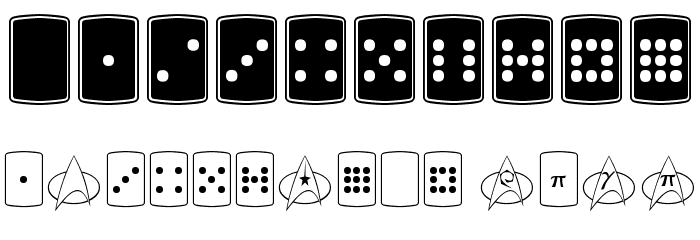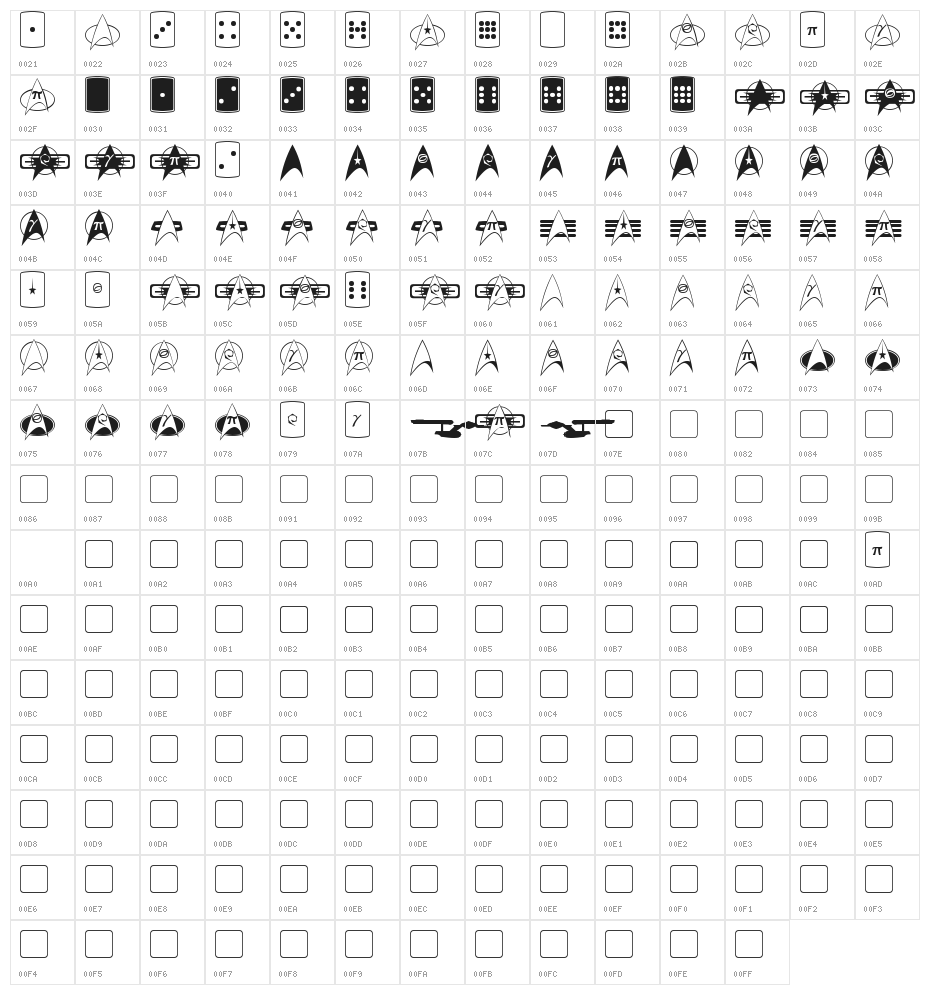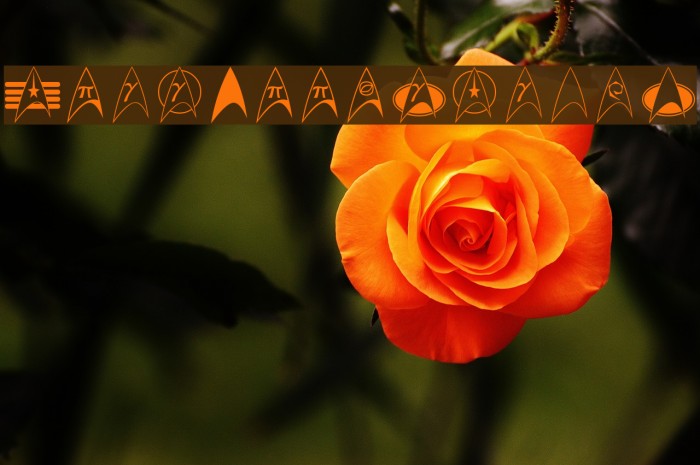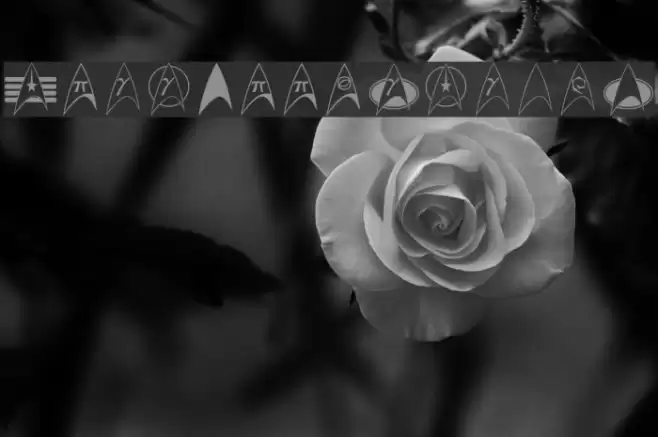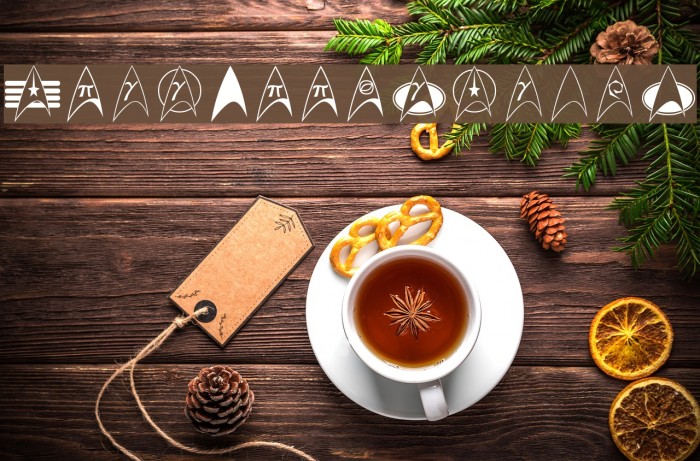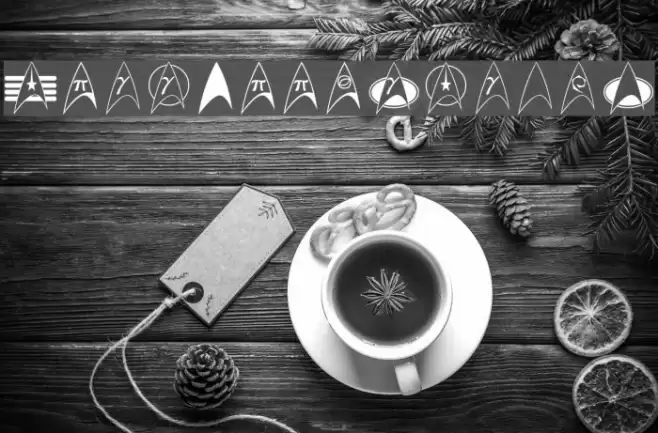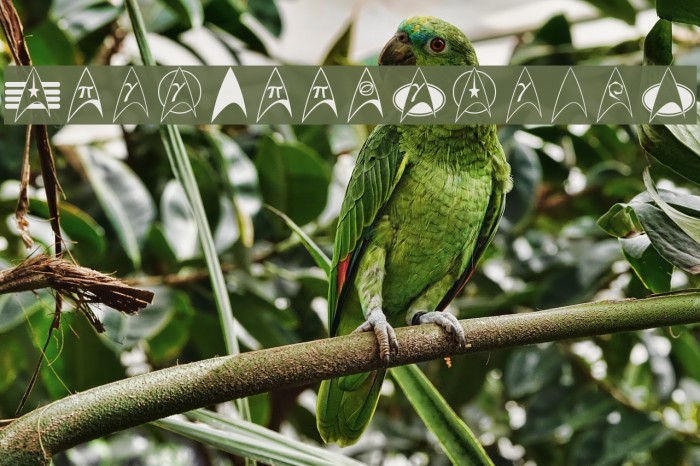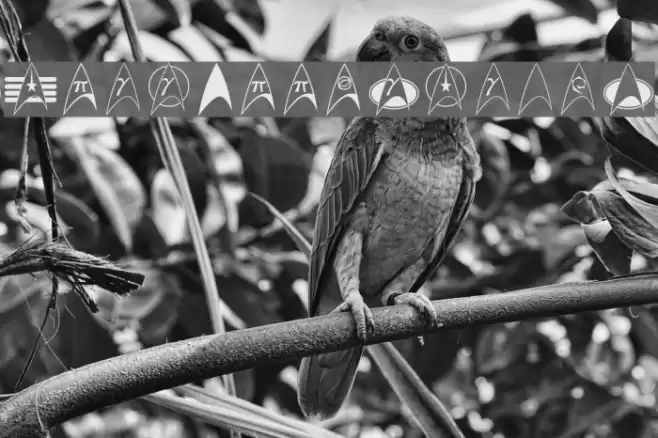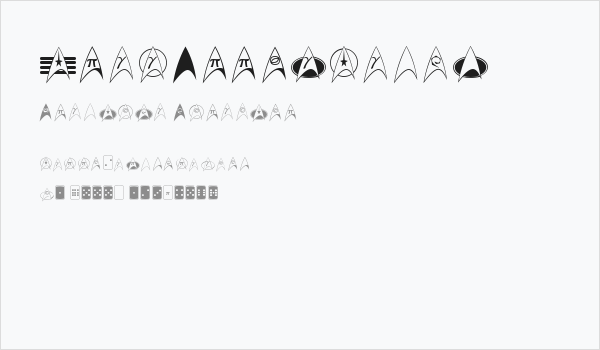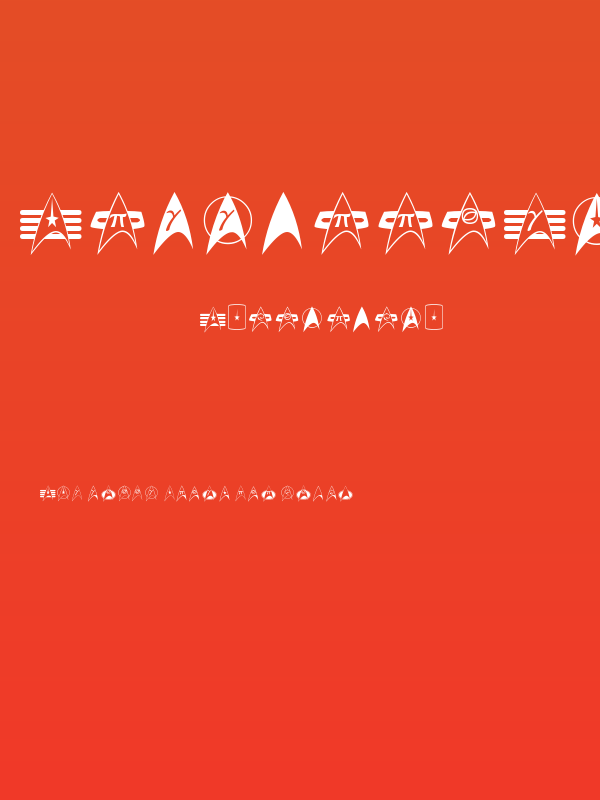
TrekArrowheads Font
TrekArrowheads Description
This is not a traditional font but a collection of symbols inspired by a well-known science fiction series. The symbols resemble arrowhead-like shapes, often associated with space exploration themes. Each symbol is unique, featuring variations with stars, circles, and lines, creating a futuristic and iconic look. The designs are bold and striking, with a mix of solid and outlined forms. These symbols are not suitable for standard text but serve as decorative elements or icons.
| Overall Style | Futuristic, Iconic |
| Use Case | Logos, Icons, Decorative elements |
| Proposed Projects | Ideal for themed graphic design projects, fan merchandise, or as decorative icons in sci-fi related media. |